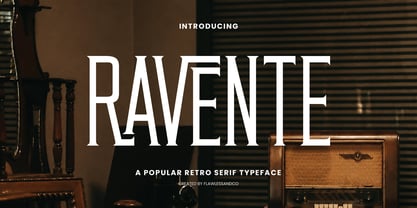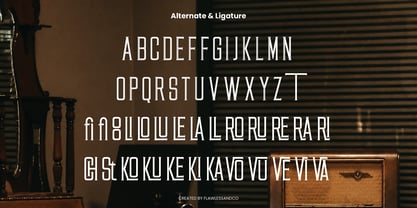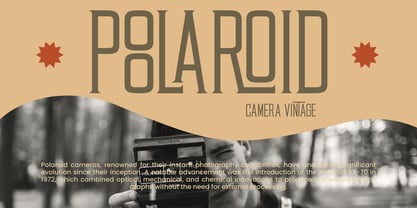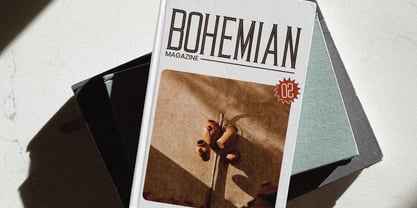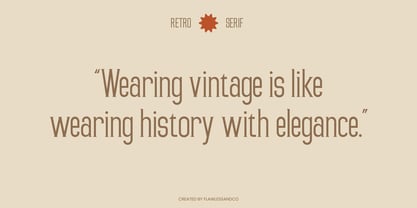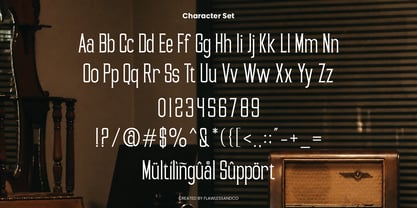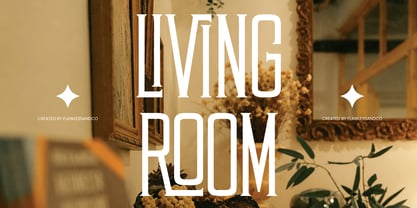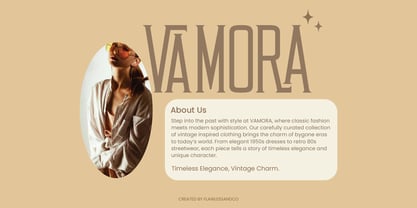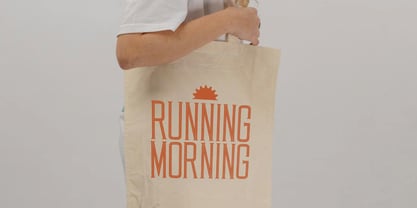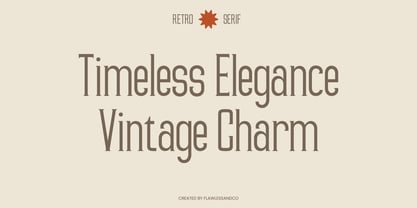
Ravente
Ravente is a retro serif font that combines vintage charm with a modern twist. Inspired by classic typography, it features bold serifs, smooth curves, and balanced letterforms that bring both elegance and character. Perfect for branding, logos, editorial designs, packaging, and more
Features :
Multilingual, Uppercase alphabet A-Z, Lowercase alphabet a-z, Numbers 0-9, Some punctuation, Alternates & Ligatures